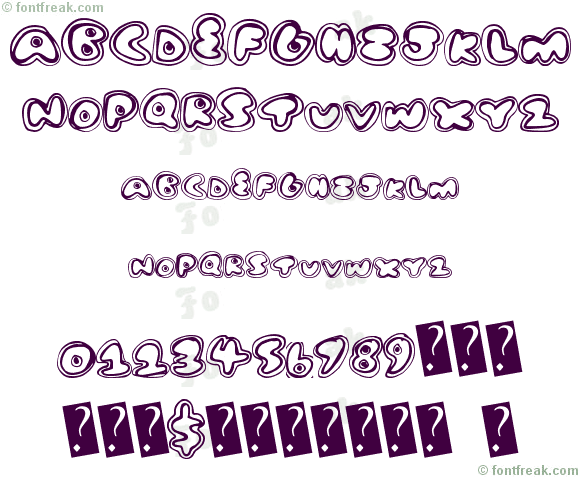
TugBoat
TugBoat by Xerographer Fonts is a unique display font that captures attention with its playful, hand-drawn aesthetic. This font features a whimsical style characterized by its bold, uneven strokes that evoke a sense of movement and creativity. The irregularity in letterforms adds a touch of personality, making it ideal for projects that benefit from a friendly and inviting tone. The stroke weight varies, giving it a dynamic quality, while generous spacing between the letters enhances readability, ensuring that it stands out in any design context.
Best used in settings such as children’s book covers, creative event posters, and quirky branding for cafes or boutiques, TugBoat brings a sense of fun and approachability. Its distinctive look makes it well-suited for wedding invitations that aim for a casual yet charming vibe, as well as for social media graphics that require a touch of personality to engage viewers effectively. Small business owners looking to create memorable logos will also find TugBoat to be a fantastic choice, as it conveys a sense of uniqueness that resonates with customers.
In a sea of conventional typefaces, TugBoat stands out due to its handcrafted feel and versatility. Its ability to blend playfulness with functionality makes it a go-to option for various design projects, ensuring that your work not only communicates effectively but also leaves a lasting impression.